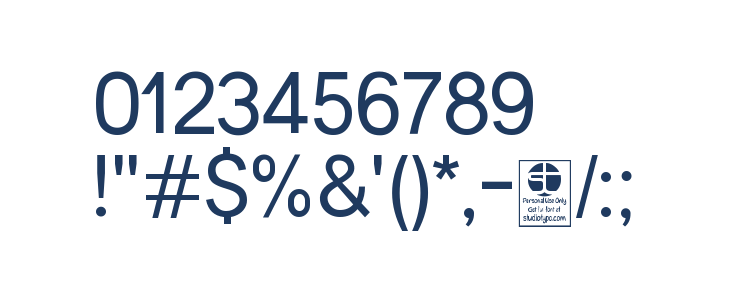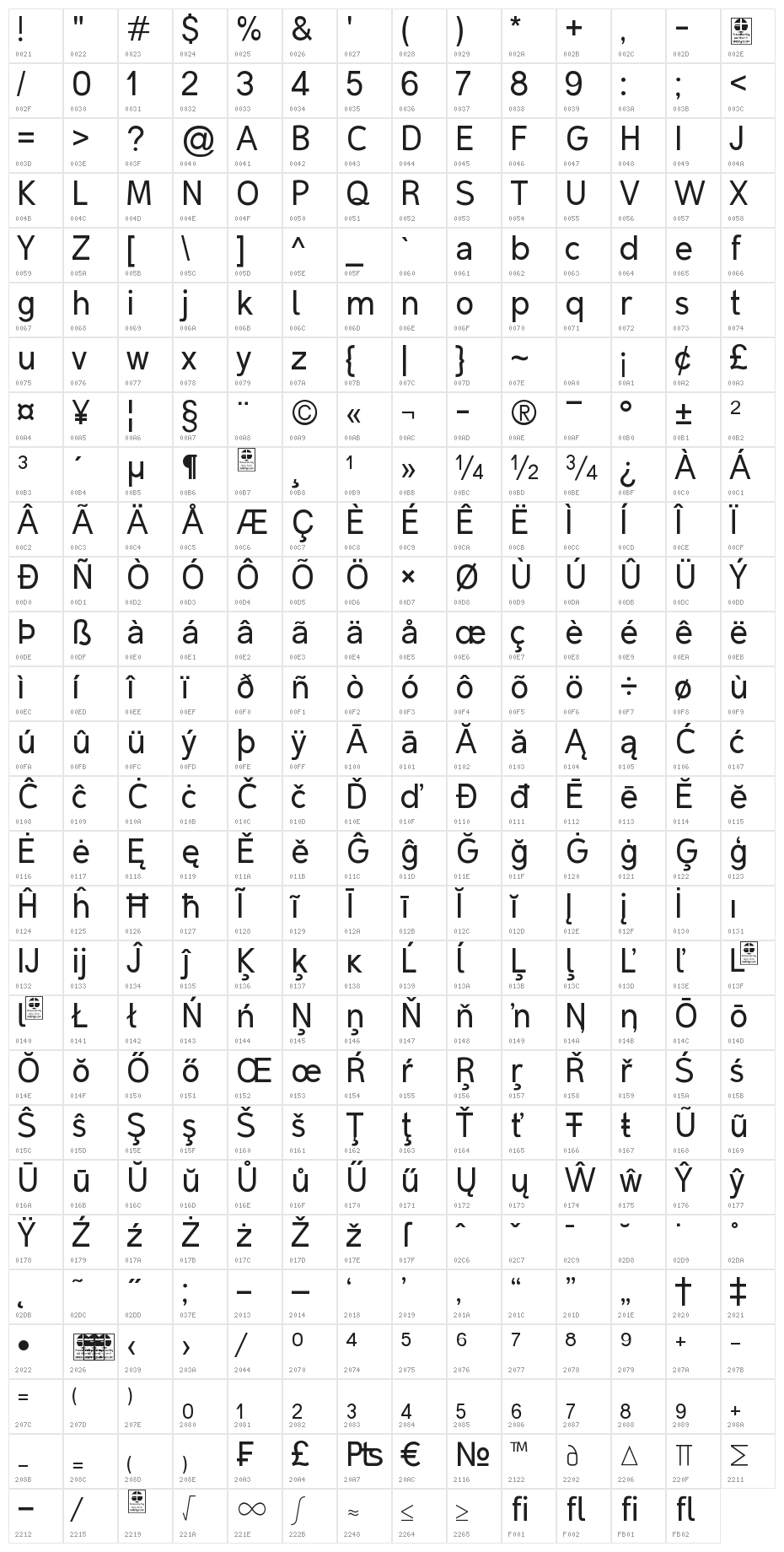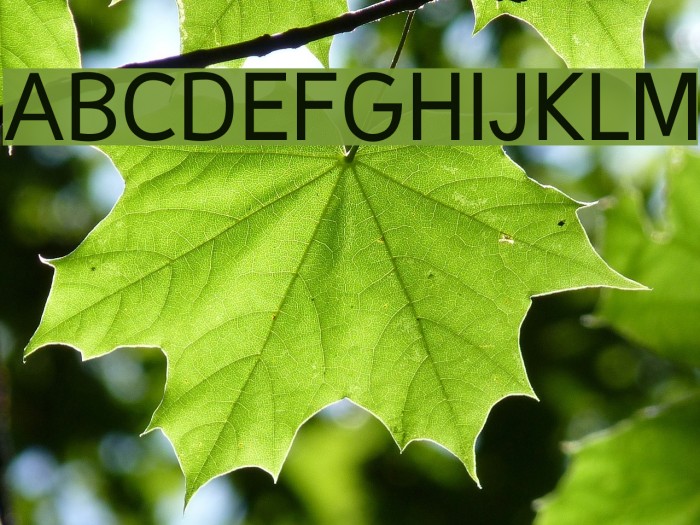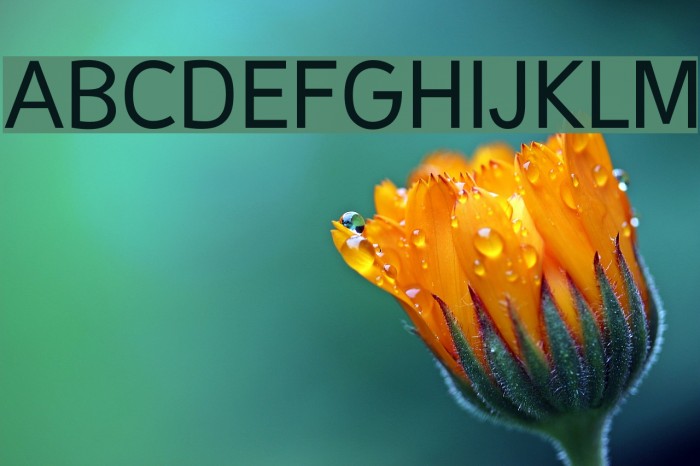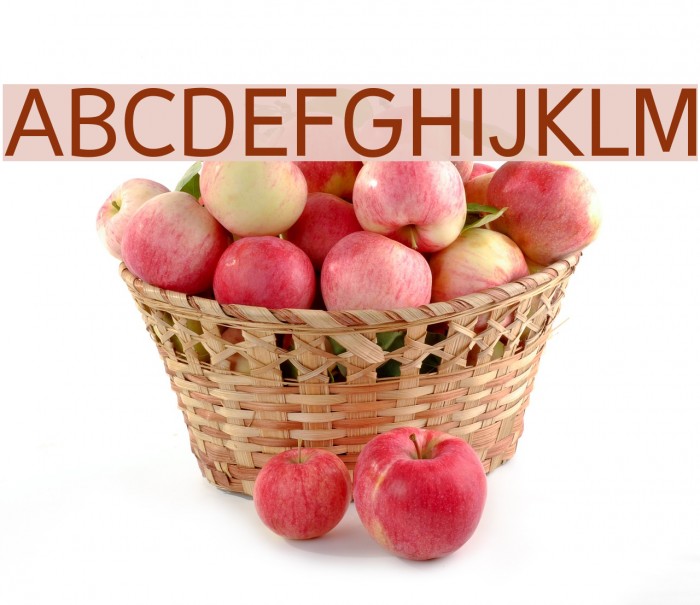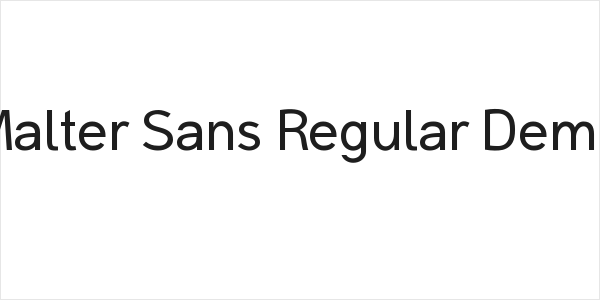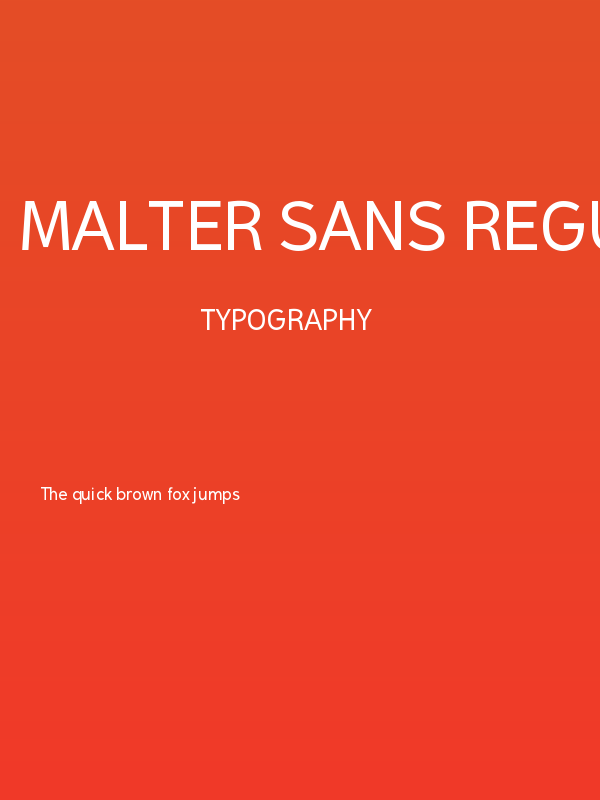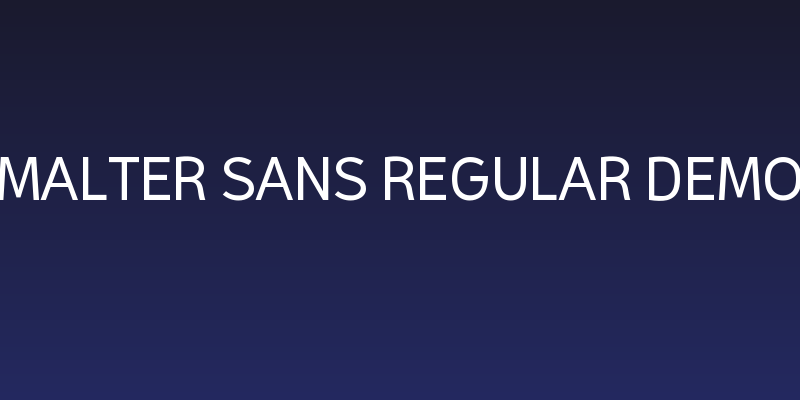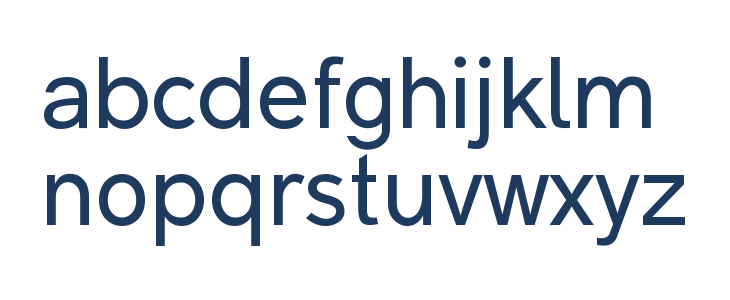
Malter Sans Regular Demo Font
Malter Sans Regular Demo Description
This font features a clean and modern sans-serif design, characterized by its simplicity and readability. The letters are evenly spaced with a consistent stroke width, providing a balanced and harmonious appearance. The uppercase and lowercase letters are well-proportioned, making it suitable for a variety of design applications. The numerals are clear and distinct, ensuring legibility in both digital and print formats. Special characters are included, maintaining the font's cohesive style. Its straightforward and uncluttered look makes it versatile for both professional and casual uses.
| Proposed Projects | Ideal for branding, web design, advertising, and editorial projects where clarity and modernity are essential. |